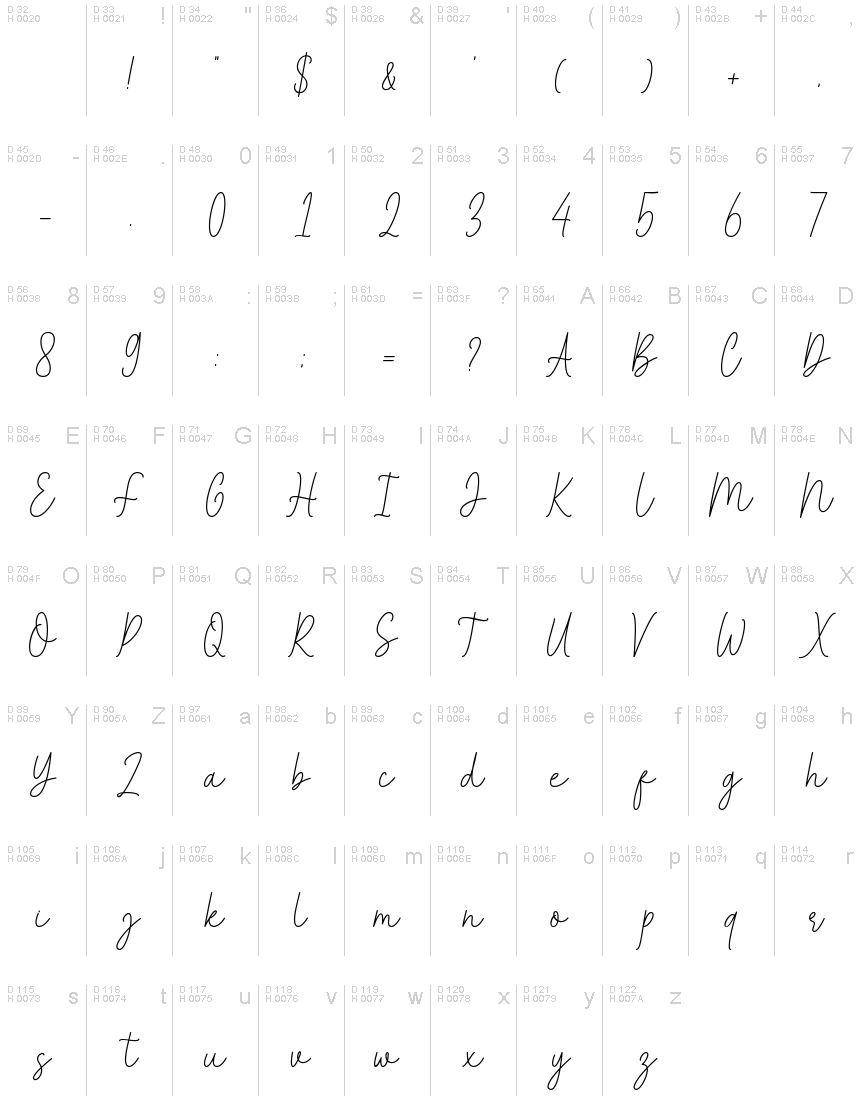
The ending
The Ending font, crafted by AV Type, epitomizes elegance with its distinctive handwritten style. This light font gracefully captures the essence of personal touch while maintaining an air of sophistication. Its fluid strokes and seamless curves make it an ideal choice for projects seeking a balance between artistry and legibility.
Perfect for invitations, logos, or any creative endeavor requiring a personalized flair, The Ending font offers versatile applications that enhance visual storytelling. Embrace the charm of this free font by downloading it to elevate your design aesthetics effortlessly.